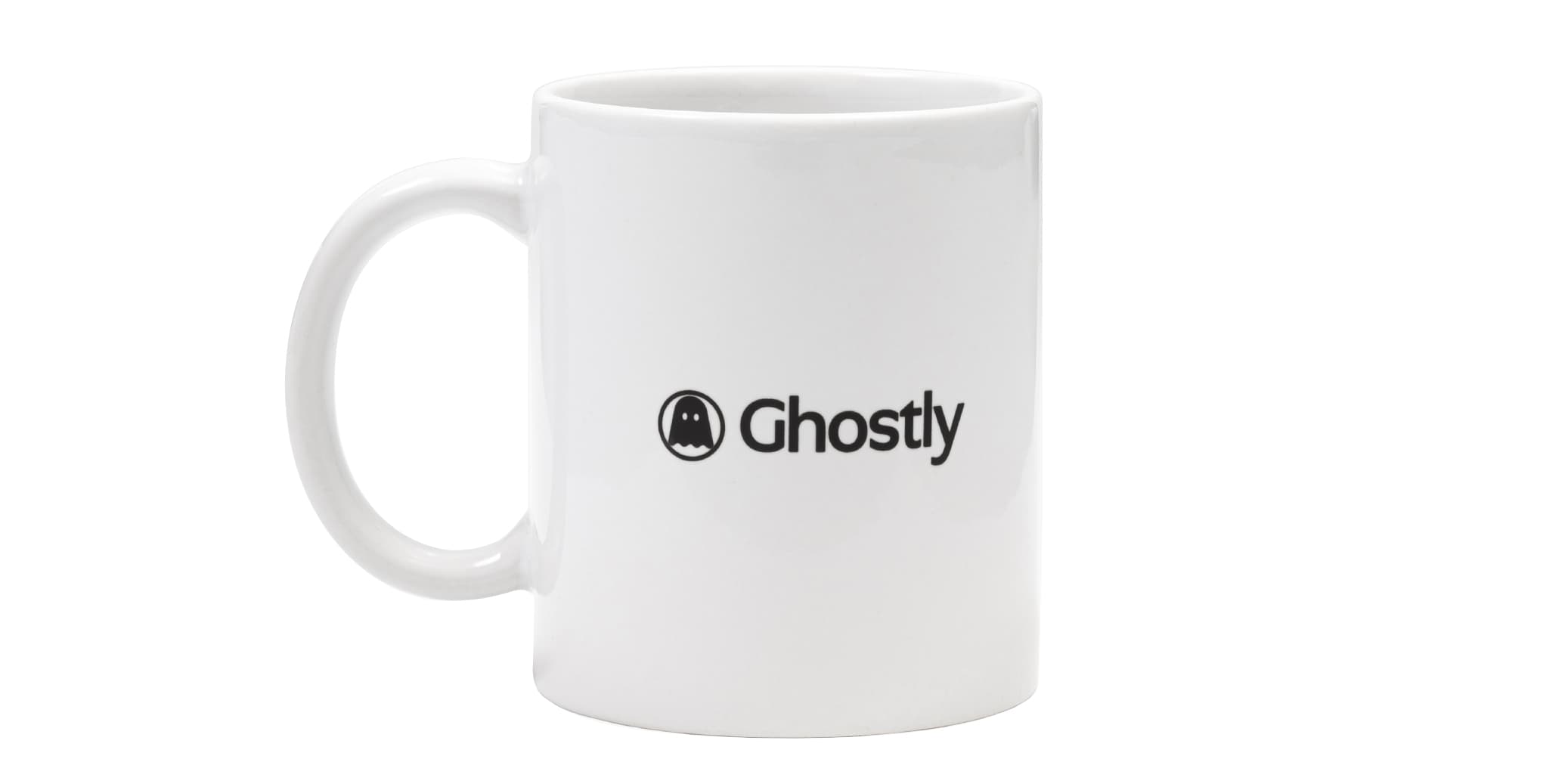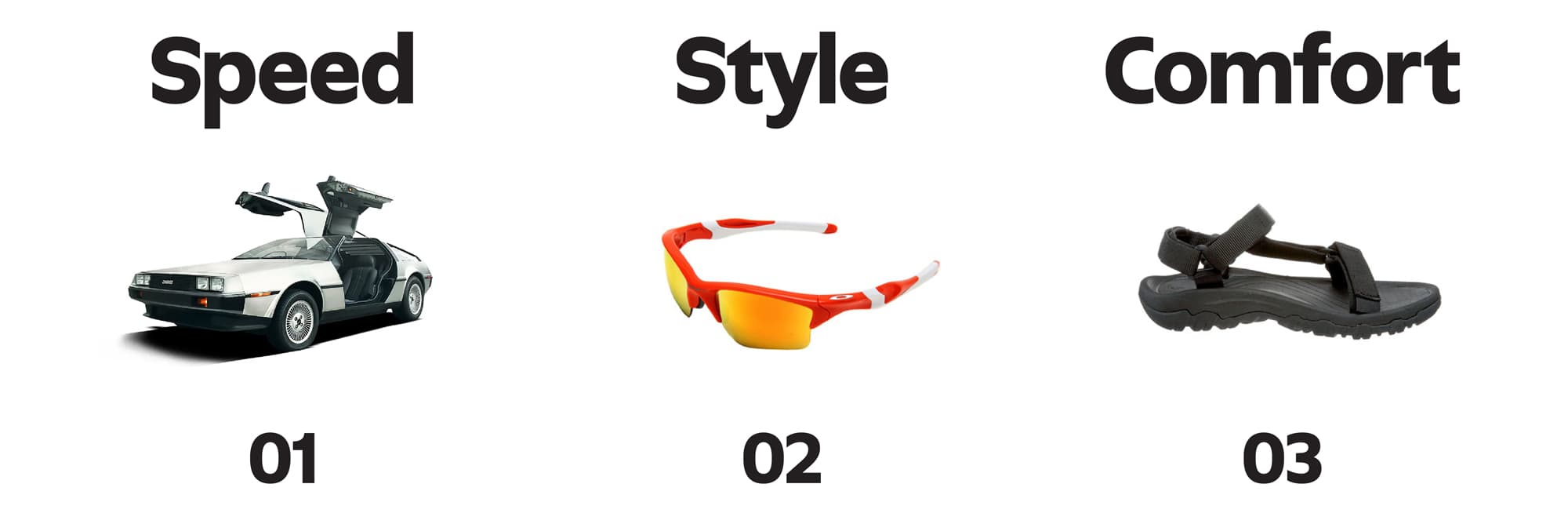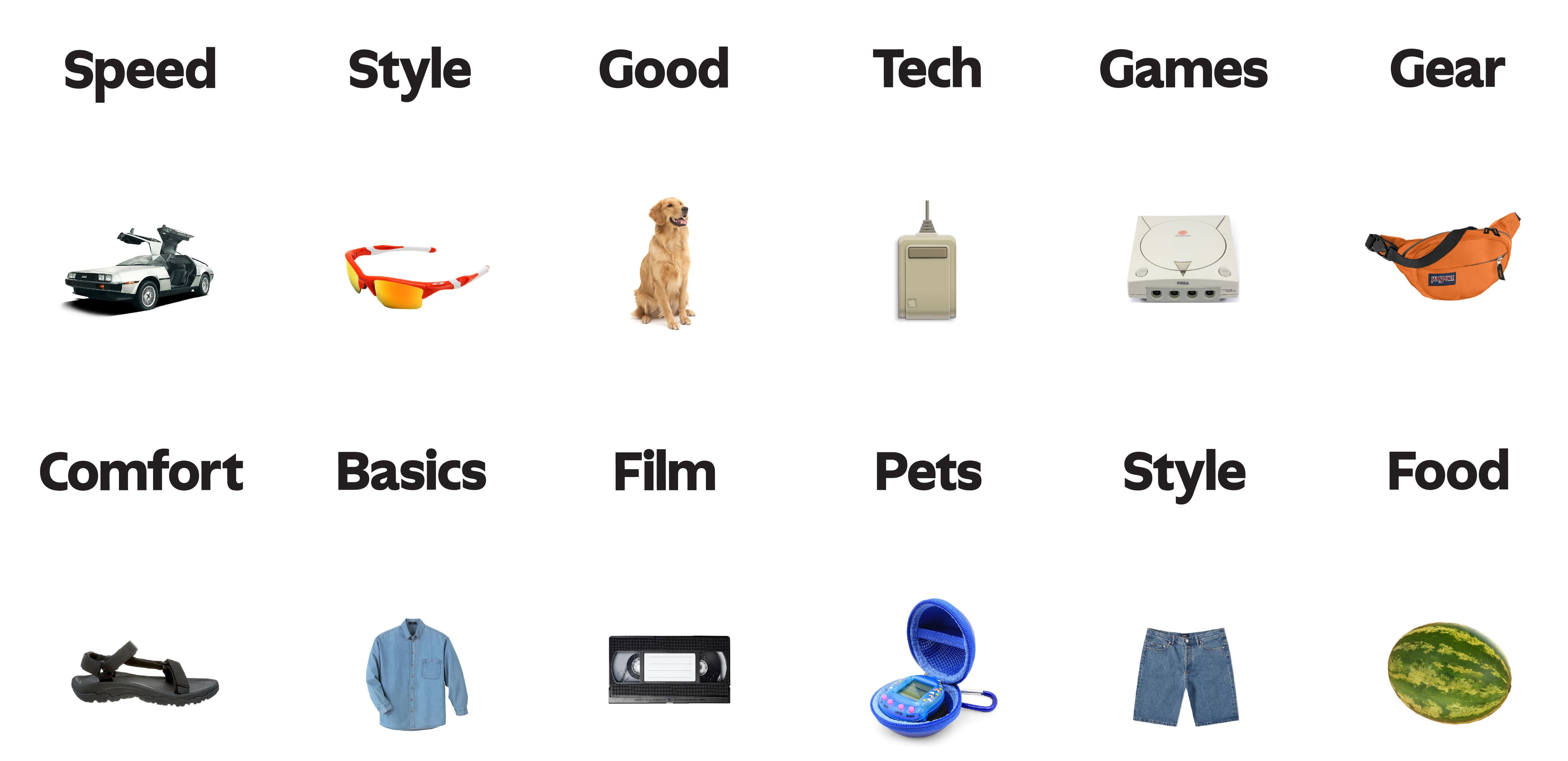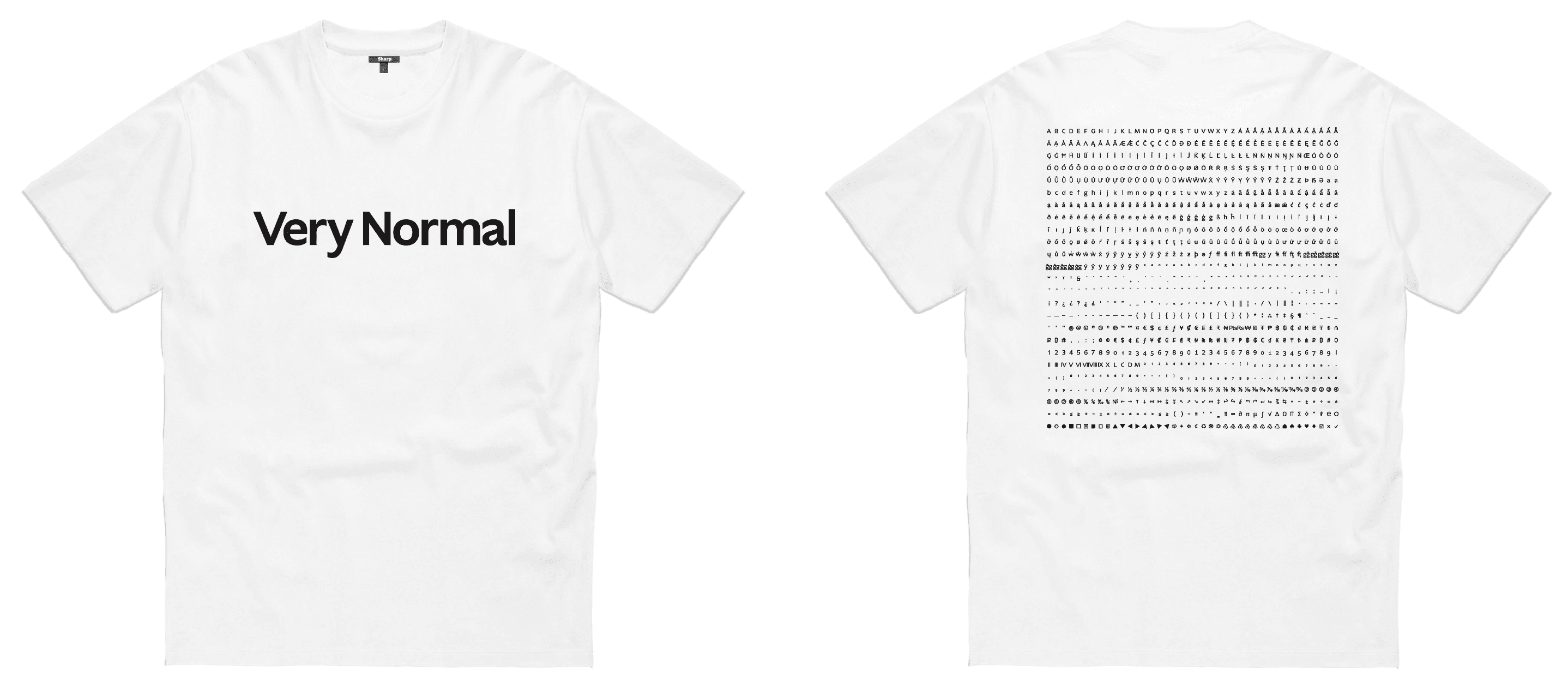
Ghost
Ghost is a new normal: a resurrection of the Humanist sans that works backwards from the genre’s origin in Roman inscriptional lettering towards a new ordinary. Here, normalcy is not a reduction, nor a simple description, but rather a set of complex, deeply nuanced design decisions. In form, in spirit, and in name, Ghost is a playful yet reverent proposition for a new standard, and a winking acknowledgement that type design is a living, breathing art form.
Very normal
Very normal, 2022.
Mixed Weights and Italics
OpenType Features
Very Normal T Shirt, 2022.
Very Normal T Shirt
Ghost Process Page
Ghost in use for Ghostly International
aalt
Access All Alternates
calt
Contextual Alternates
dlig
Discretionary Ligatures
dnom
Denominators
frac
Fractions
liga
Standard Ligatures
lnum
Lining Figures
locl
Localized Forms
numr
Numerators
onum
Oldstyle Figures
ordn
Ordinals
pnum
Proportional Figures
ss01
ss02
ss03
subs
Subscript
sups
Superscript
tnum
Tabular Figures